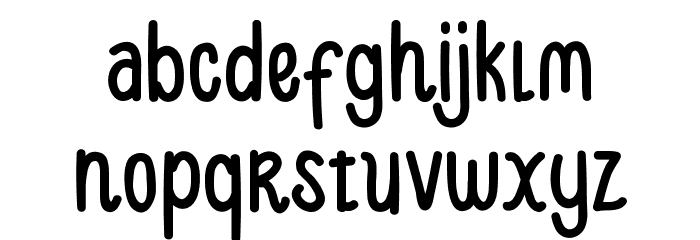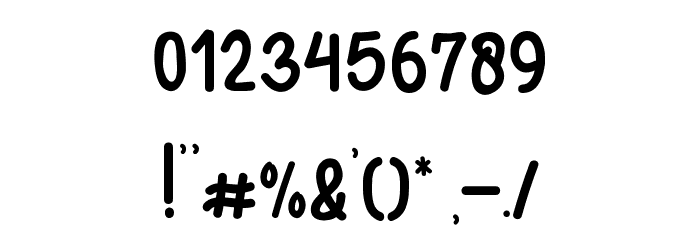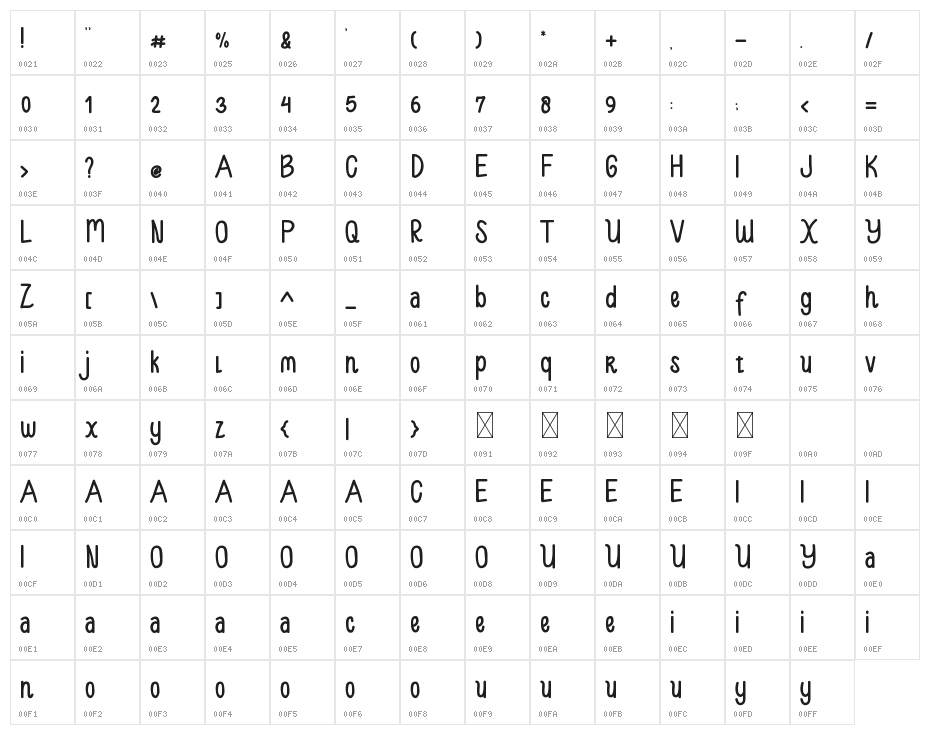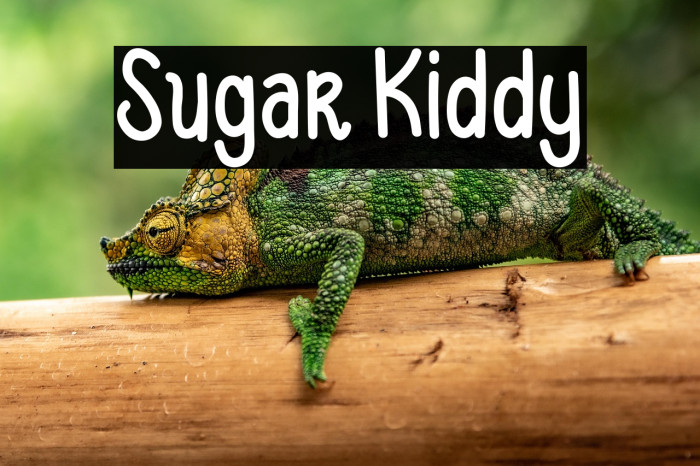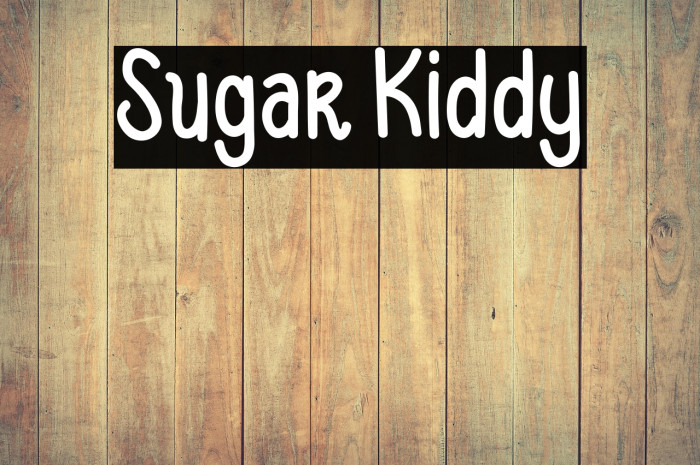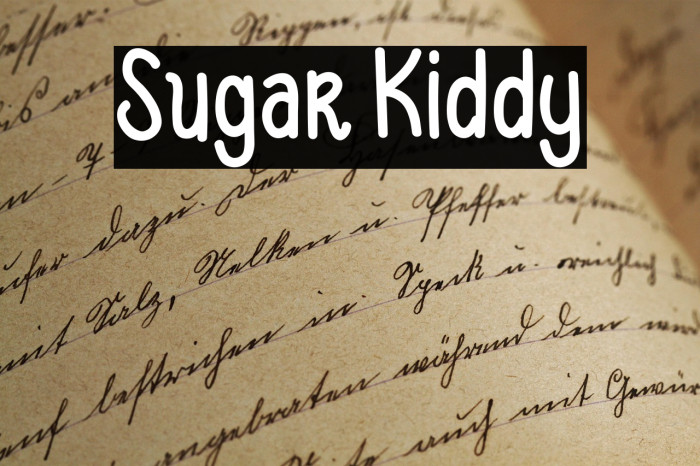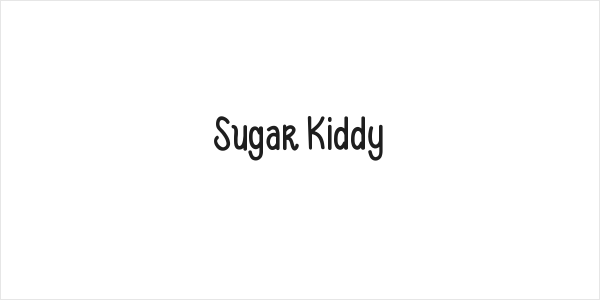
Sugar Kiddy Font
This playful and whimsical font features rounded, bubbly characters that convey a sense of fun and lightheartedness. The letters have a hand-drawn quality, with slight variations in stroke width that add to its charm. The uppercase letters are bold and prominent, while the lowercase letters maintain a consistent style, enhancing readability. The numerals and special characters are crafted to match the overall playful aesthetic, making this font ideal for projects that require a touch of creativity and joy. Its informal style is perfect for children's books, playful branding, or any design that aims to evoke a sense of fun.
A playful, hand-drawn font with rounded, bubbly characters.
- Proposed Projects: Children's books, playful branding, greeting cards, party invitations.
- Overall Style: Playful
- Use Case: Headlines, Logos, Informal text